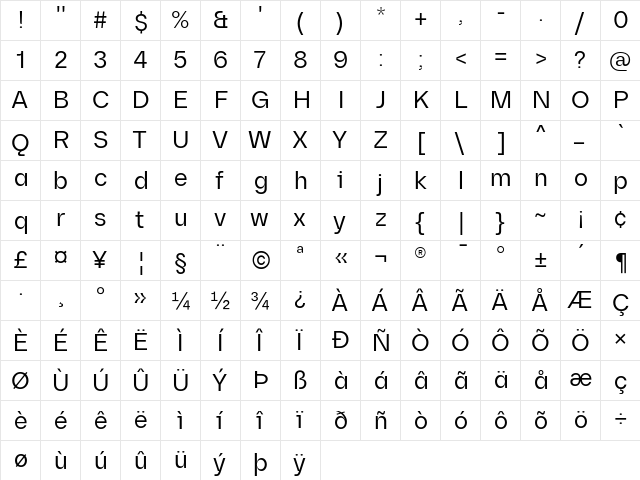
Diagramm Regular
| Foundry | Harmnessless |
| Designer | Akbar Rohmanto |
Design Context for Diagramm Typeface
Diagramm is a composed and adaptable typeface that performs quietly and consistently across a wide range of design contexts.
Pro Tip: Pair Diagramm with a font of contrasting weight or personality to build a more expressive typographic hierarchy.